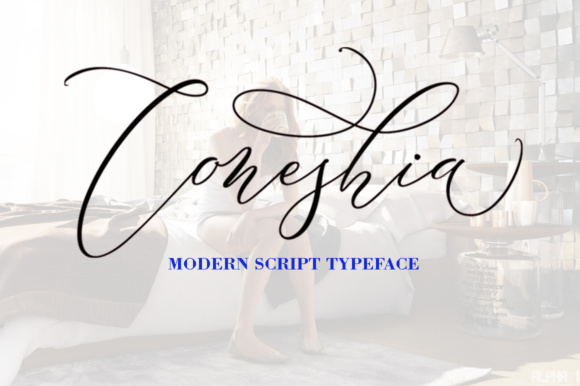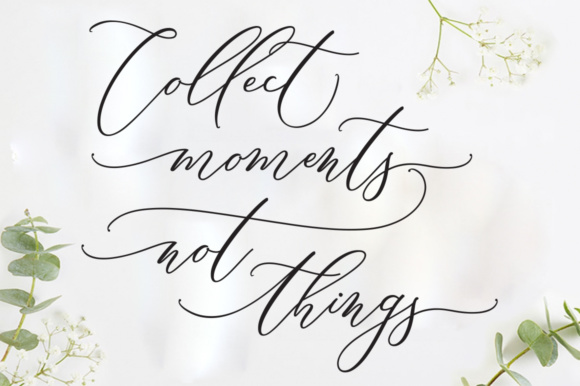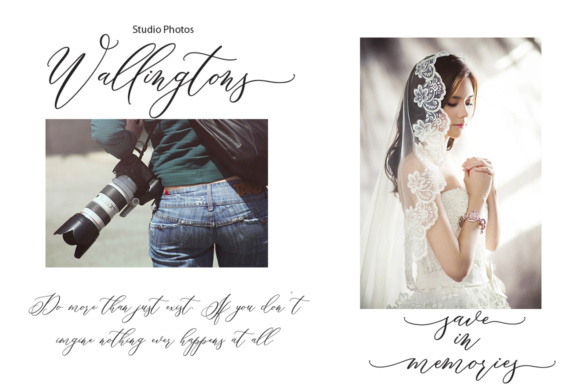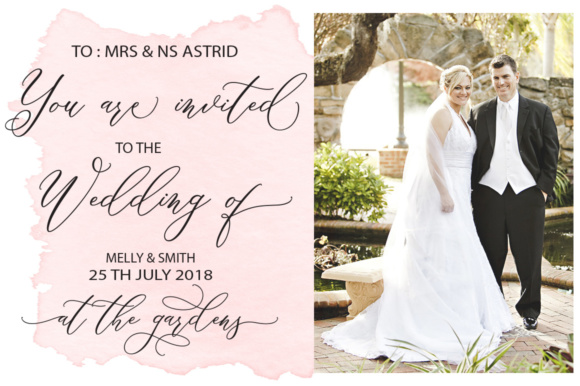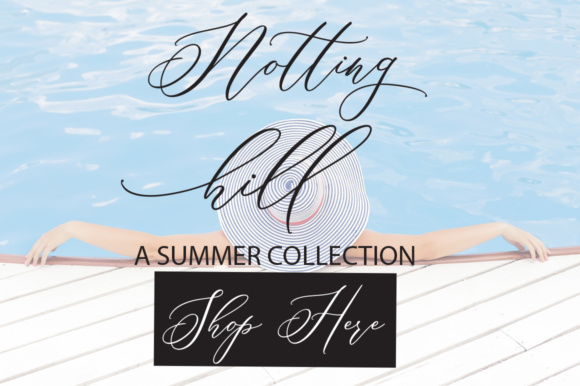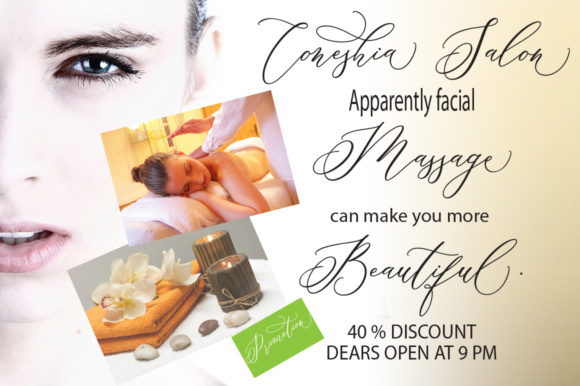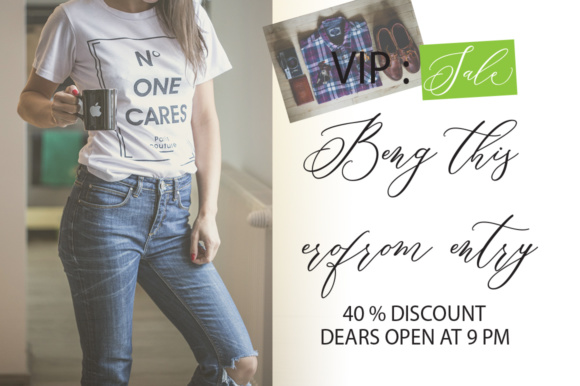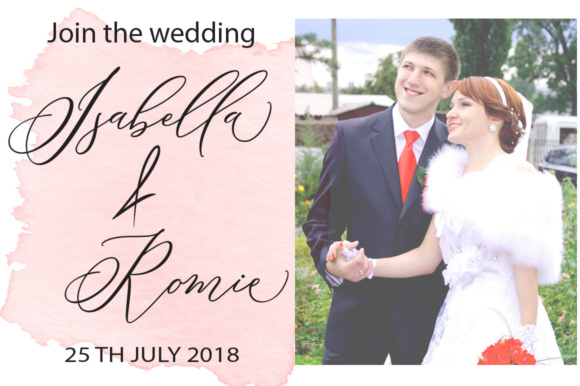
Coneshia Font
About Coneshia Font
Coneshia is perfect for elegant logos, upscale packaging, wedding stationery, websites, and any other projects requiring a handwritten and luxurious touch. Several kinds of swash and alternate included so that you can give your logo or name of a custom, hand-calligraphy display.
Coneshia was built with OpenType features and includes beginning and ending swashes, alternate swash characters for most lowercase letters, numbers, punctuation, alternates, ligatures and it also supports other languages ????